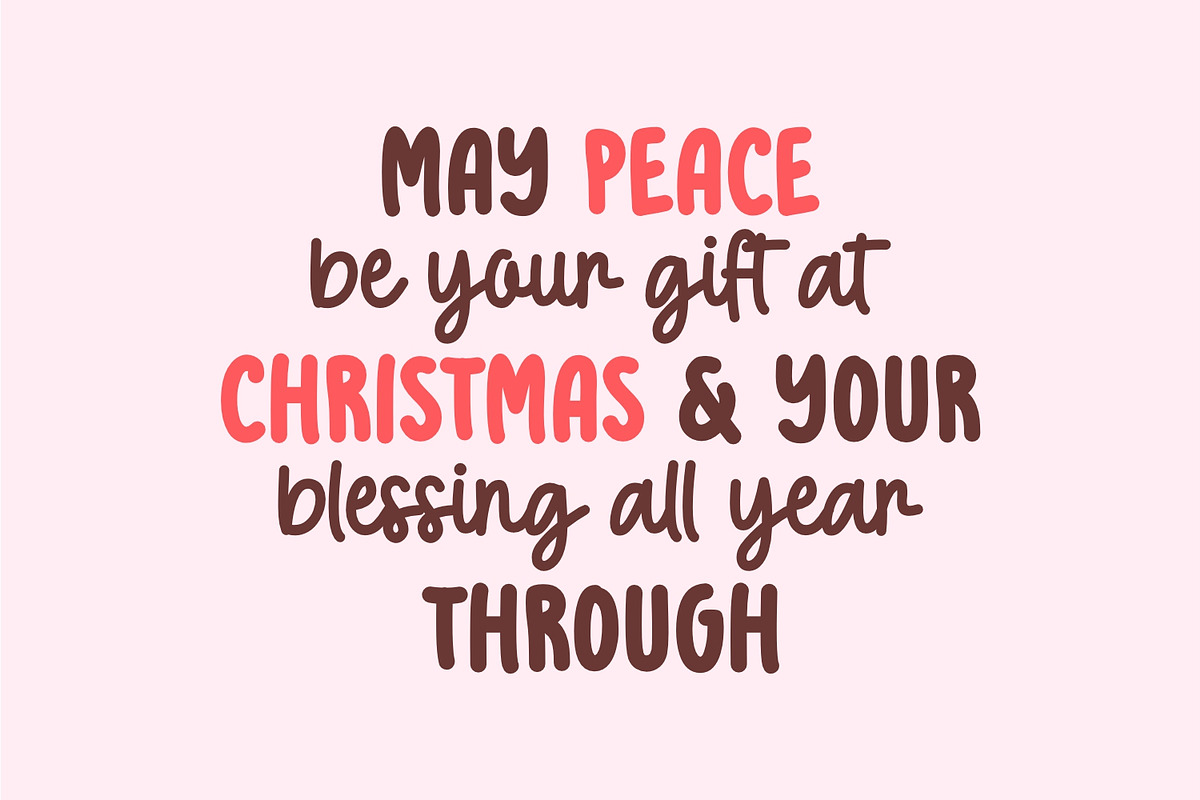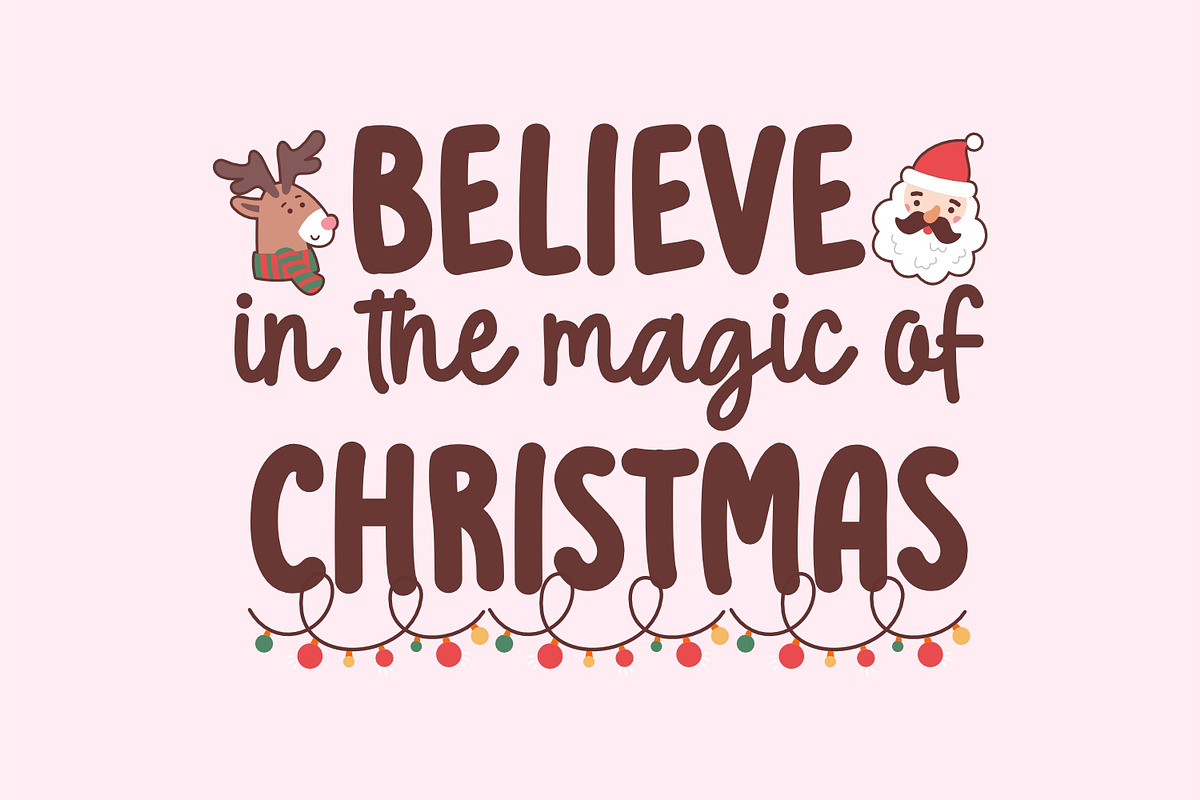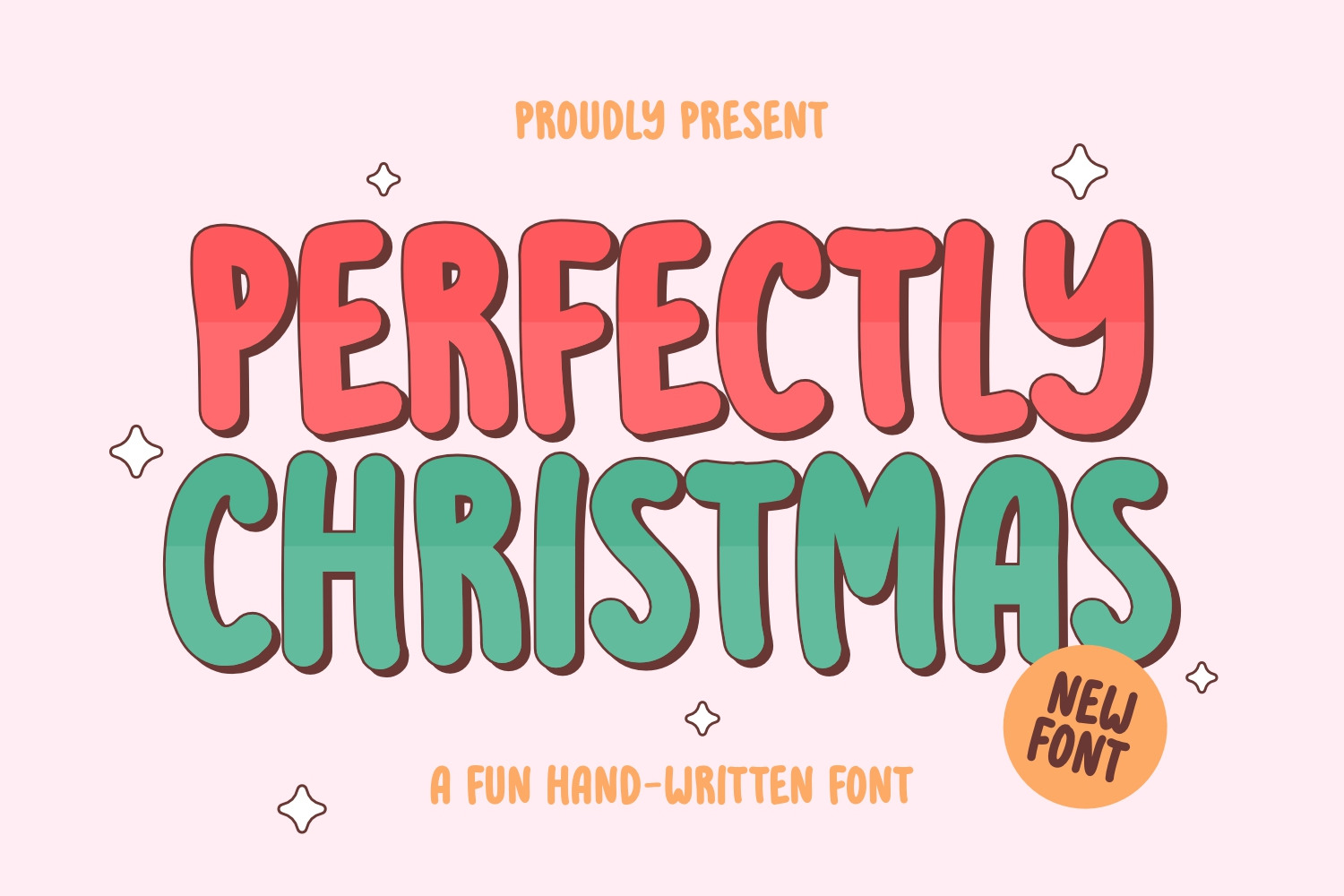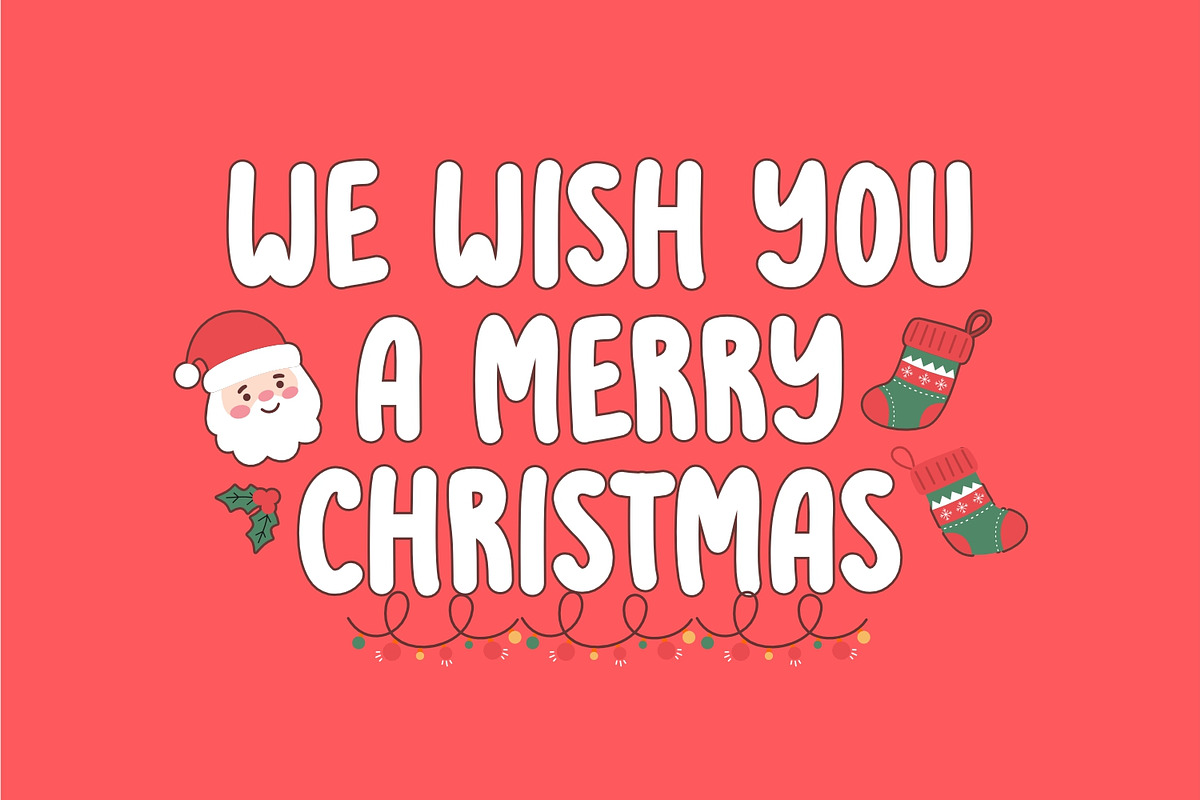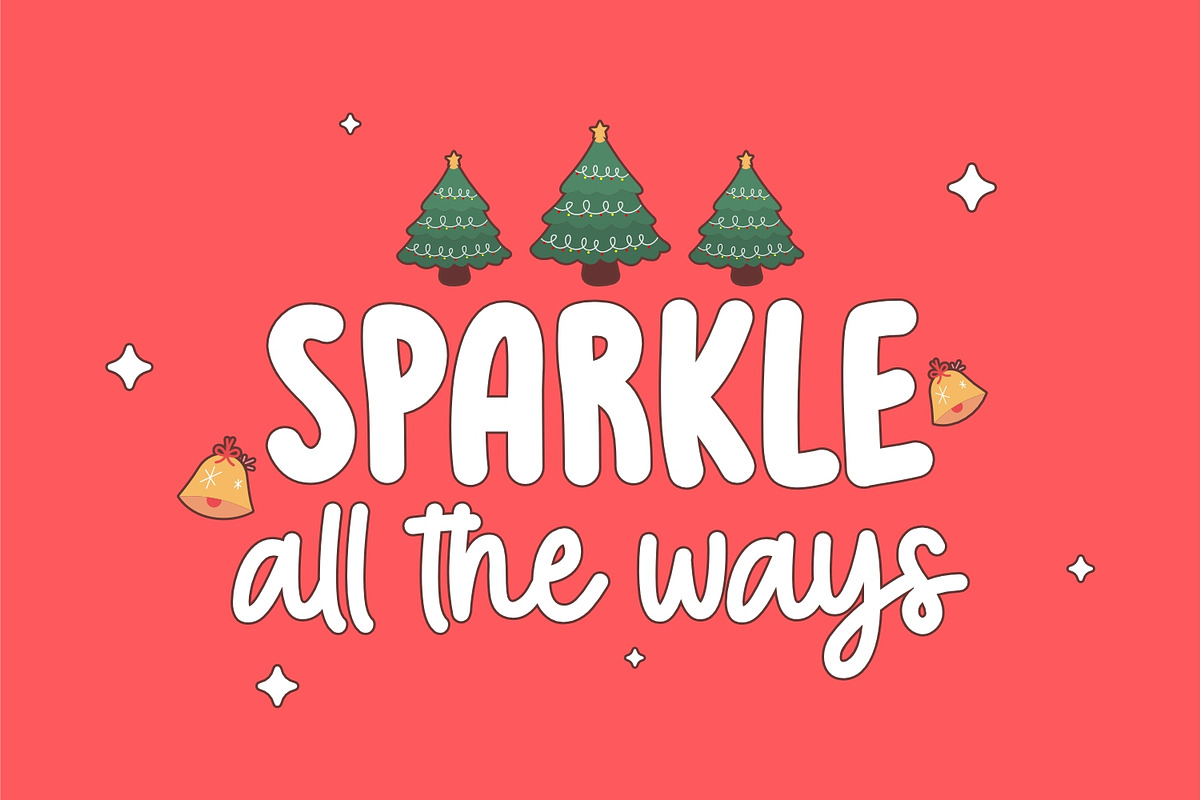
Perfectly Christmas - Christmas Font
Perfectly Christmas is a playful and festive handwritten font that adds a touch of holiday joy to your projects. With a fun and casual style, it brings warmth and cheer to your Christmas-themed designs. Ideal for greeting cards, festive messages, or any creative project that aims to capture the spirit of the season. Let Perfectly Christmas infuse your creations with a lighthearted and joyful vibe, making every project feel like a celebration!